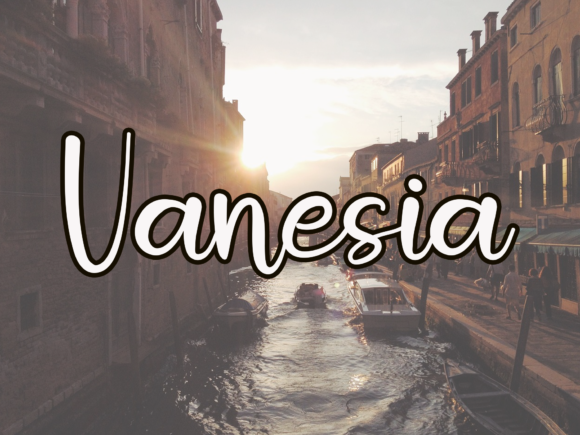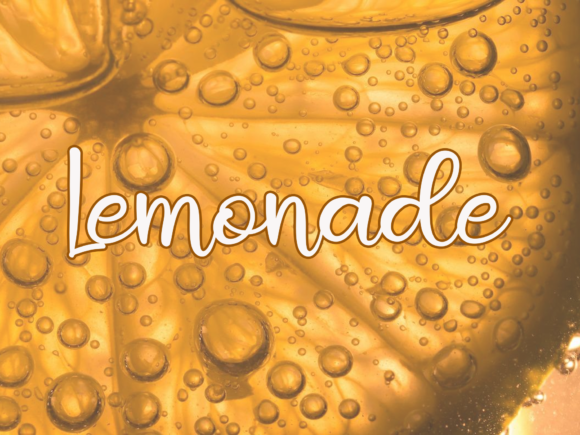
Water Color Font
db-ku.com - Script & Handwritten -- Water Color is a unique, round lettered handwritten font that was carefully crafted to produce the desired results. This font can be used to write titles, invitations, letters, and many other types of products.